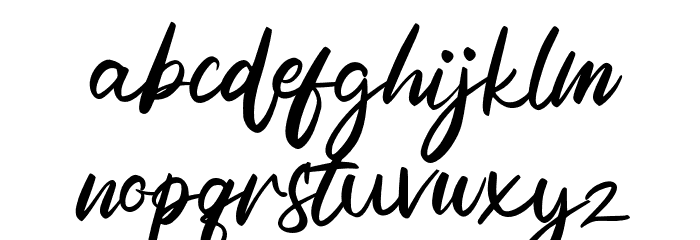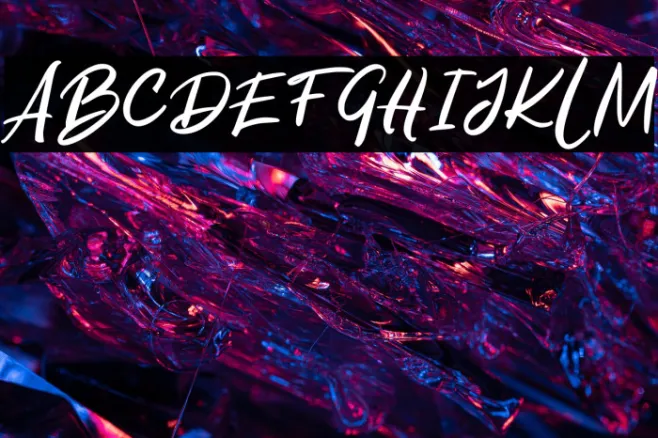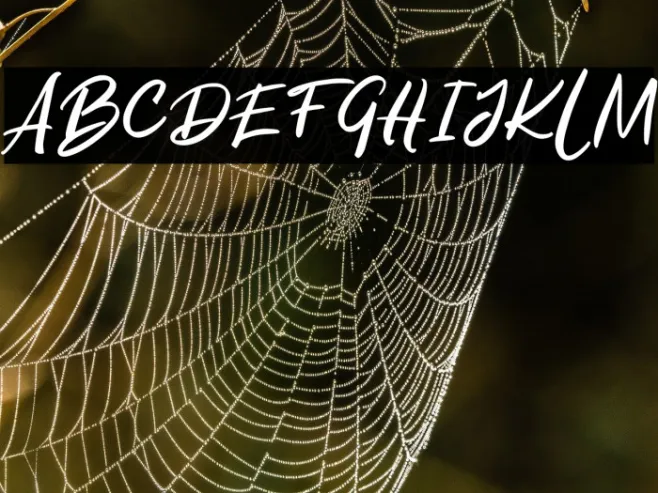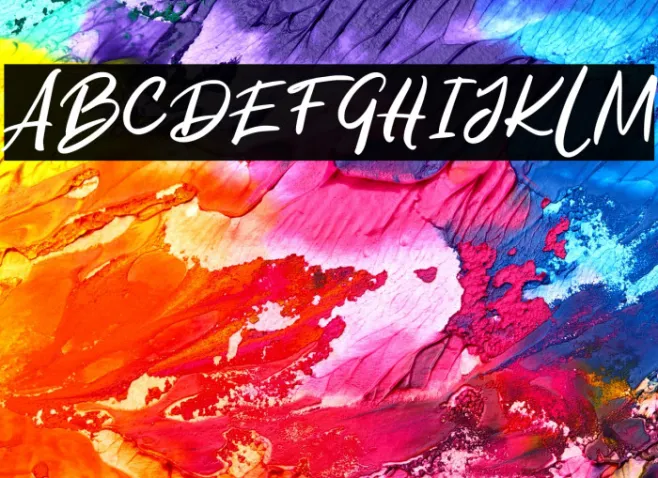
RolestFREE Font
This font features a dynamic and fluid script style, characterized by its smooth, flowing strokes and elegant curves. The uppercase letters are bold and slightly slanted, giving a sense of movement and grace. The lowercase letters maintain a consistent style, with rounded edges and a natural, handwritten appearance. The font exudes a sense of sophistication and creativity, making it ideal for projects that require a personal touch. Its legibility is enhanced by the moderate spacing between characters, allowing each letter to stand out while maintaining a cohesive look.
A fluid and elegant script font with a handwritten style.
- Font: RolestFREE
- Proposed Projects: Ideal for wedding invitations, greeting cards, branding, and logo design.
- Category: Script
- Overall Style: Elegant and Creative
- Use Case: Logos, Invitations, Decorative Text